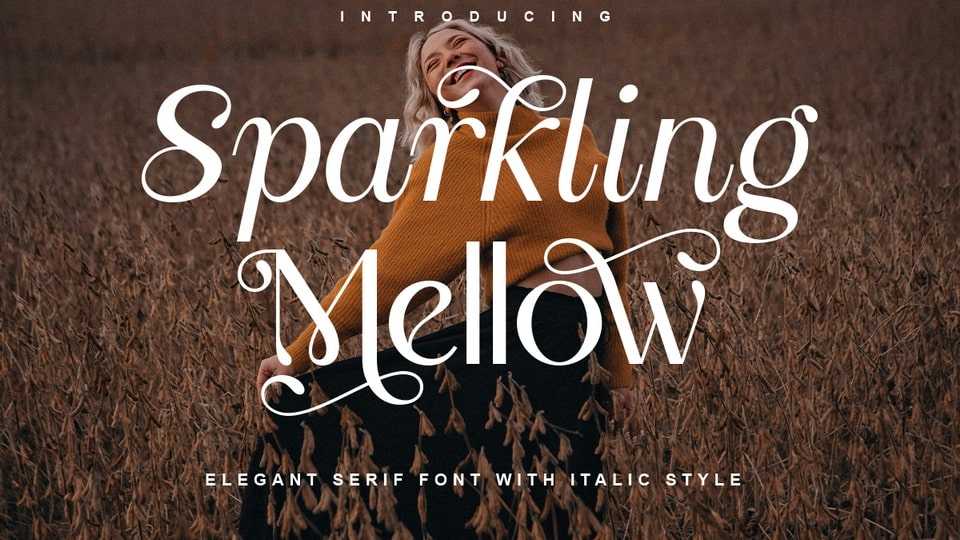
Download Sparkling Mellow font, an elegant sans serif typeface with an italic style. Its modern and minimalist look, this typeface brings a luxurious, classy, and clean style.